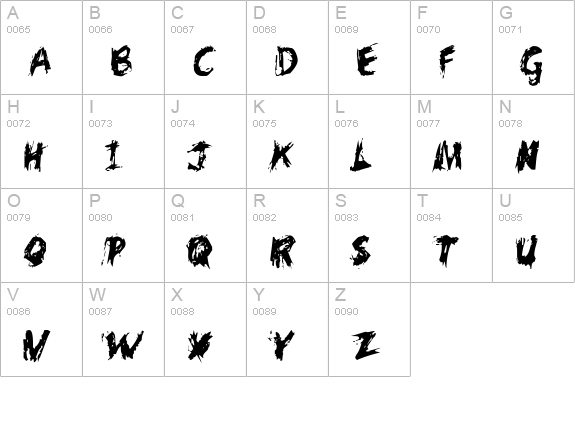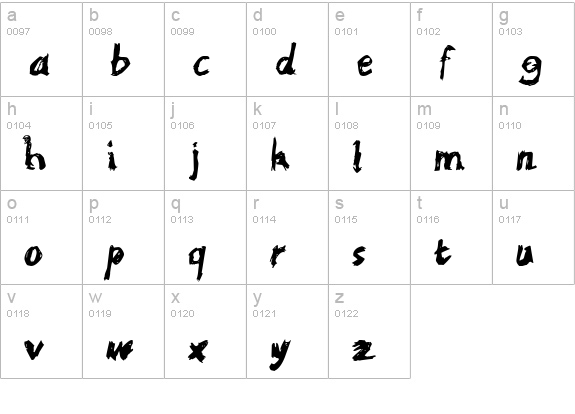
Scratchy Large Font Details
Introducing Scratchy Large font, a bold and eye-catching typeface that will make a statement in any design project. With its unique and scratchy appearance, this font is perfect for adding a touch of edginess and personality to your designs. Whether you are creating posters, logos, or social media graphics, Scratchy Large font will instantly grab attention and leave a lasting impression. Its large size and bold strokes make it highly readable, ensuring that your message comes across loud and clear. But what sets Scratchy Large font apart is that it is not only visually striking, but it is also free! That's right, you can freely download this font at FontsMarket.com. This means that you can add a touch of creativity and uniqueness to your designs without having to worry about breaking the bank. With Scratchy Large font, the possibilities are endless. Whether you want to create a grungy rock band poster or a modern and edgy logo, this font has got you covered. Its versatility and boldness make it a perfect choice for a wide range of design projects. So why wait? Download Scratchy Large font today from FontsMarket.com and let your creativity run wild. Stand out from the crowd with this free and captivating typeface that will leave a lasting impression on your audience.